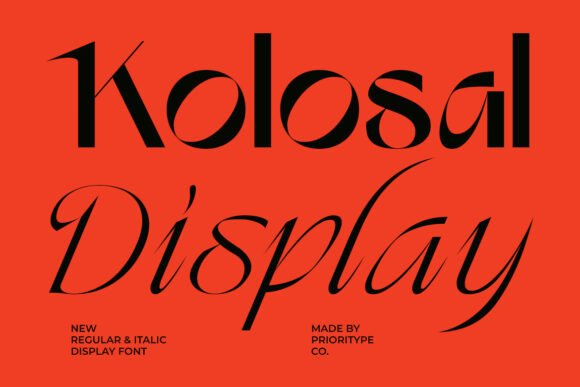
Kolosal Display Font: A Bold and Memorable Typeface for Creative Projects
In the world of typography, a font can make or break the visual impact of a design. When it comes to making a statement, few typefaces can rival the bold and memorable Kolosal Display Font. This unique font is designed to command attention and leave a lasting impression, making it perfect for creative projects that demand a touch of sophistication and elegance.
Two Distinct Styles: Regular and Italic
Kolosal Display Font comes in two distinct styles: Regular and Italic. This duality allows designers to adapt the font seamlessly to various creative projects, from eye-catching posters to versatile branding designs.
Regular: Thick and Powerful
The Regular style of Kolosal Display Font is thick and powerful, perfect for commanding attention. Its bold strokes and sturdy structure make it ideal for headlines, titles, and any design element that needs to stand out. Whether you’re creating a poster, billboard, or social media graphic, the Regular style of Kolosal Display Font is sure to make a statement.
Italic: Sleek and Subtle
The Italic style of Kolosal Display Font, on the other hand, is sleek and subtle, ideal for adding a refined touch to your designs. Its slender strokes and elegant structure make it perfect for body text, descriptions, and any design element that requires a touch of sophistication. The Italic style is also great for creating a sense of movement and fluidity in your designs.
Versatile Design Applications
Kolosal Display Font is a versatile typeface that can be used in a wide range of design applications. Its modern yet timeless appeal makes it perfect for:
- Eye-catching posters and flyers
- Branding designs and logos
- Social media graphics and ads
- Billboards and signage
- Packaging designs and labels
Whether you’re a graphic designer, artist, or marketing professional, Kolosal Display Font is a valuable addition to your typography arsenal.
Typography Tips for Using Kolosal Display Font
To get the most out of Kolosal Display Font, here are some typography tips to keep in mind:
- Use the Regular style for headlines and titles to create a bold and attention-grabbing effect.
- Use the Italic style for body text and descriptions to add a touch of elegance and sophistication.
- Experiment with different font sizes and colors to create visual hierarchy and contrast.
- Pair Kolosal Display Font with other fonts to create a unique and harmonious typography combination.
The Benefits of Using Kolosal Display Font
Kolosal Display Font offers a range of benefits for designers and marketers, including:
- Improved brand recognition: With its bold and memorable design, Kolosal Display Font can help to create a lasting impression and improve brand recognition.
- Increased visual impact: The font’s unique style and versatility make it perfect for creating eye-catching designs that grab attention.
- Enhanced creativity: Kolosal Display Font’s modern yet timeless appeal makes it a great choice for designers looking to push the boundaries of typography and creativity.
Kolosal Display Font Features
Kolosal Display Font features a range of characteristics that make it a standout typeface, including:
- Bold and powerful design: The font’s thick and powerful strokes make it perfect for commanding attention.
- Sleek and subtle italic style: The Italic style adds a touch of elegance and sophistication to your designs.
- Modern yet timeless appeal: The font’s unique style is both modern and timeless, making it perfect for a wide range of design applications.
In conclusion, Kolosal Display Font is a bold and memorable typeface that is perfect for creative projects that demand attention and sophistication. With its two distinct styles, versatile design applications, and range of benefits, this font is a valuable addition to any designer’s typography arsenal. Whether you’re a graphic designer, artist, or marketing professional, Kolosal Display Font is sure to leave a lasting impression.